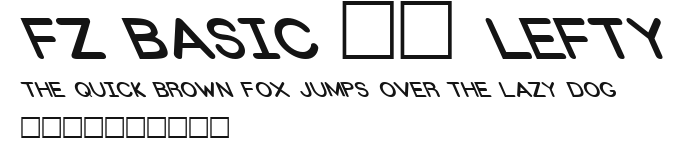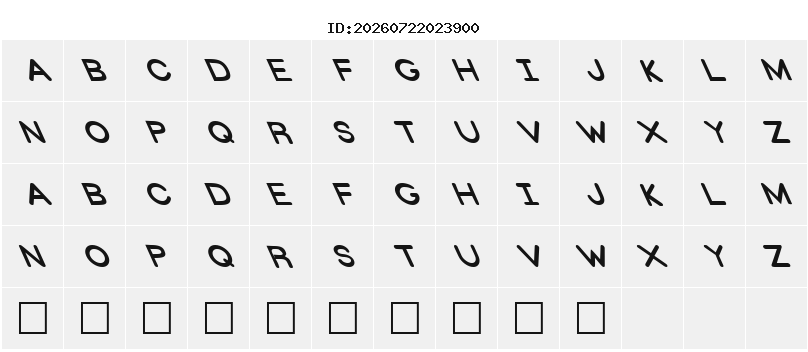
• Font Name: FZ BASIC 31 LEFTY
• Full Font Name: FZ BASIC 31 LEFTY
About FZ BASIC 31 LEFTY.ttf
FZ BASIC 31 LEFTY.ttf is a modern, elegant sans-serif font designed for ultimate readability and visual harmony. Perfect for branding, headlines, web design, and print materials.